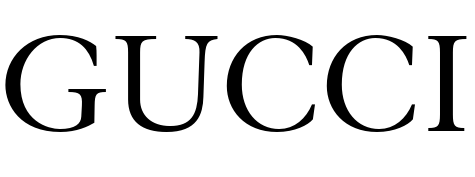
Gucci Font
ApparelGucci is an Italian luxury fashion brand founded in 1921 by Guccio Gucci. It is known for its high-end clothing, accessories, and leather goods, including handbags, shoes, and watches. The brand is recognized for its iconic logo, which features a double G design. The interlaced double Gs, which resemble a monogram in shape, stand for the brand's founder Guccio Gucci's initials.
The serif typeface used in the Gucci wordmark and the Granjon Roman font are quite similar. Granjon Roman is a commercial typeface and you can purchase and download the font here.